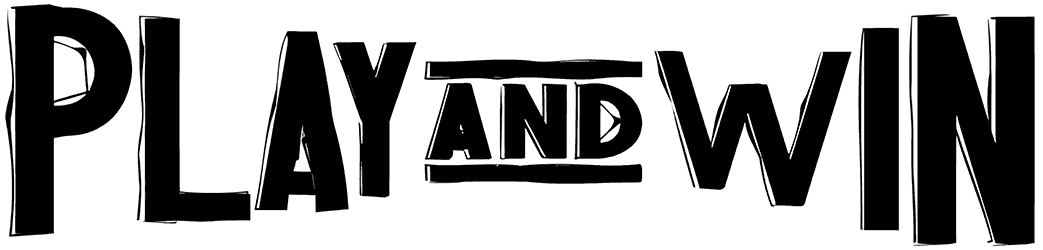
Play And Win Font
You can create a modern and distinct visual for your project, but keep it modest with this title font. Lowercase letters, numbers, and punctuation marks are not available, but the Play And Win font supports two sets of capitals. Use this all-caps font to adorn your fighting game scene and convey an energetic vibe to your viewers.